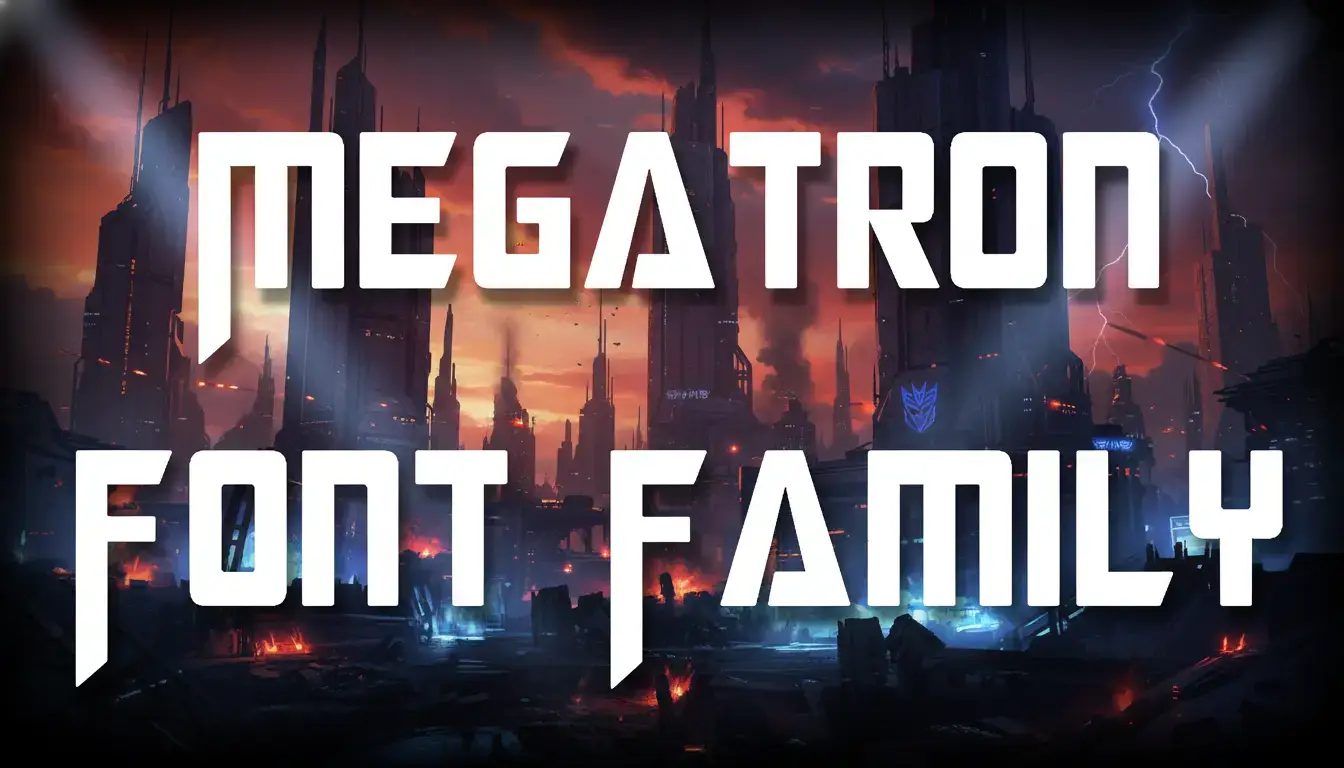
Megatron Font
Megatron is a techno font designed by Neale Davidson. Its angular, engineered shapes look right at home on screens and tech products. The free download includes two styles, and you can try every one of them with your own text in the preview above.
- Designer: Neale Davidson
What You Can Type With Megatron
With complete upper and lowercase letters and all ten digits, Megatron is ready for real wording, not just a single headline. Everyday marks like &, !, ? and @ are there too. Thanks to its accented letters, it also works for Spanish, French, German, Portuguese and Italian, not just English.
Where Megatron Works Best
Megatron is a natural fit for gaming logos, tech branding and futuristic posters. Try it on a dark background with a bright accent color for a sharp, modern look. Because the family has more than one style, you can mix them in a single design for headings, subheadings and highlights.
Does Megatron support accented letters?
Yes. Megatron includes the accented letters needed for Spanish, French, German, Portuguese and Italian, so it works for more than just English.
What fonts pair well with Megatron?
A simple sans serif like Roboto keeps longer text easy to read next to it.